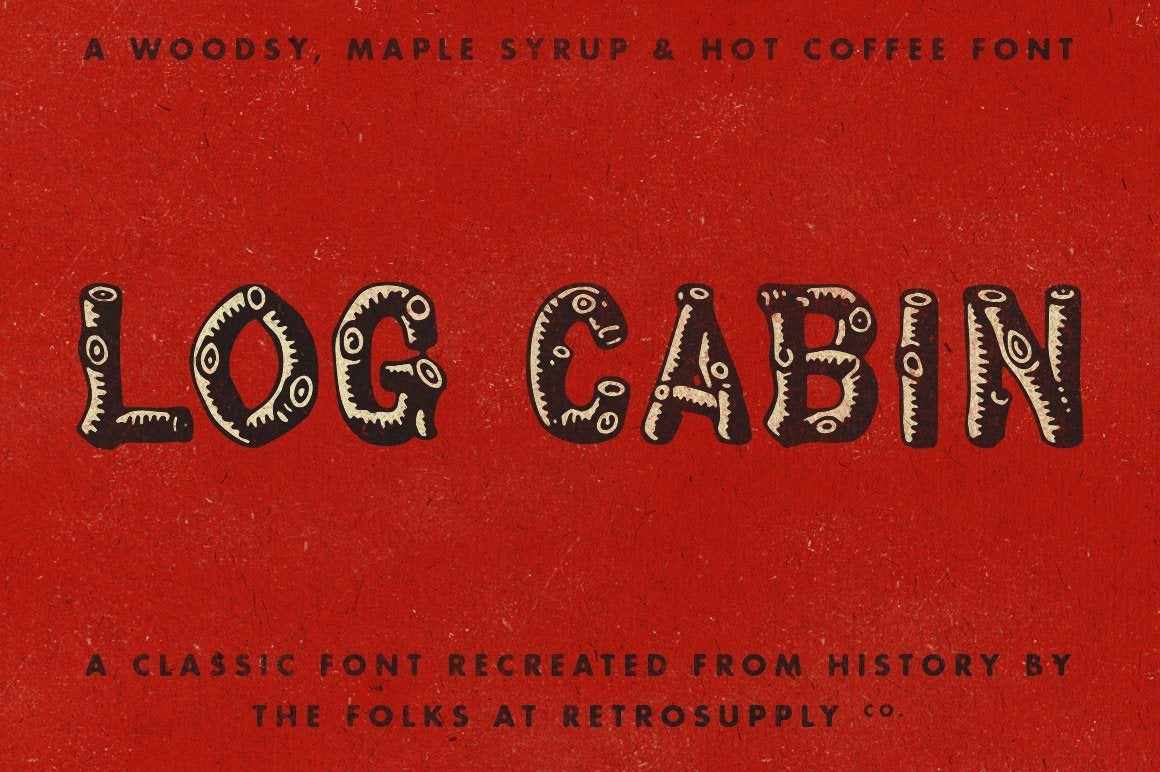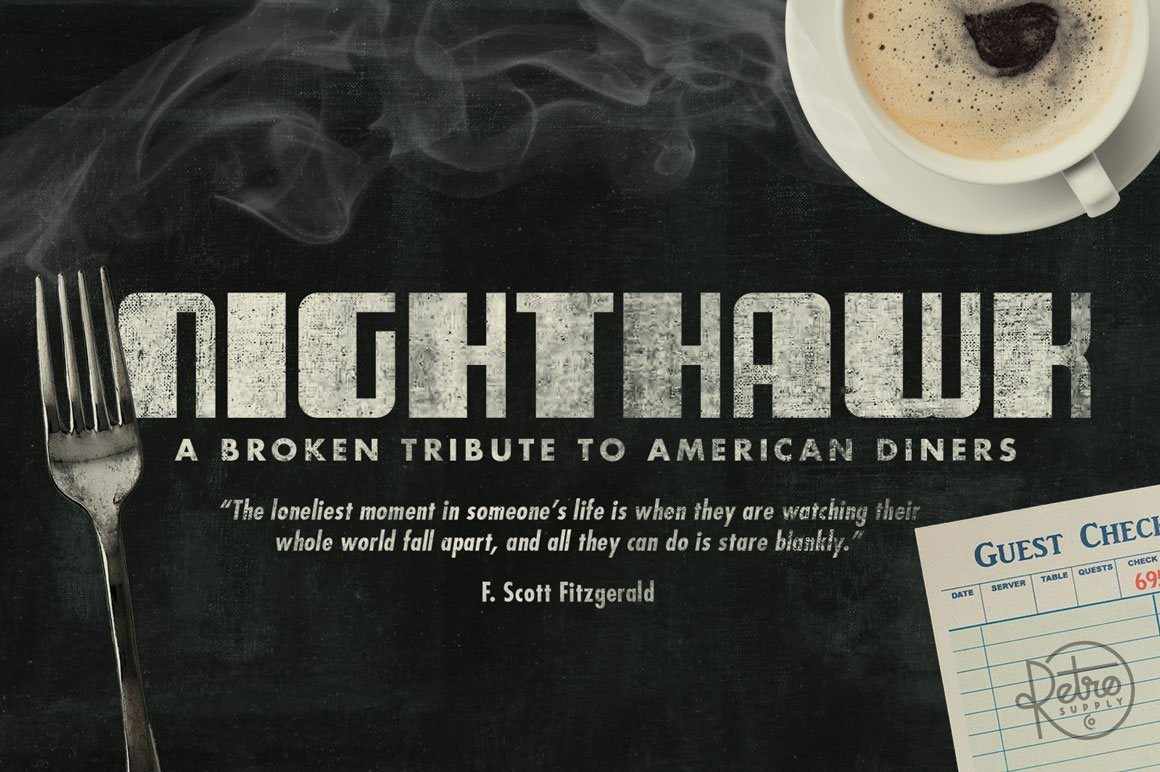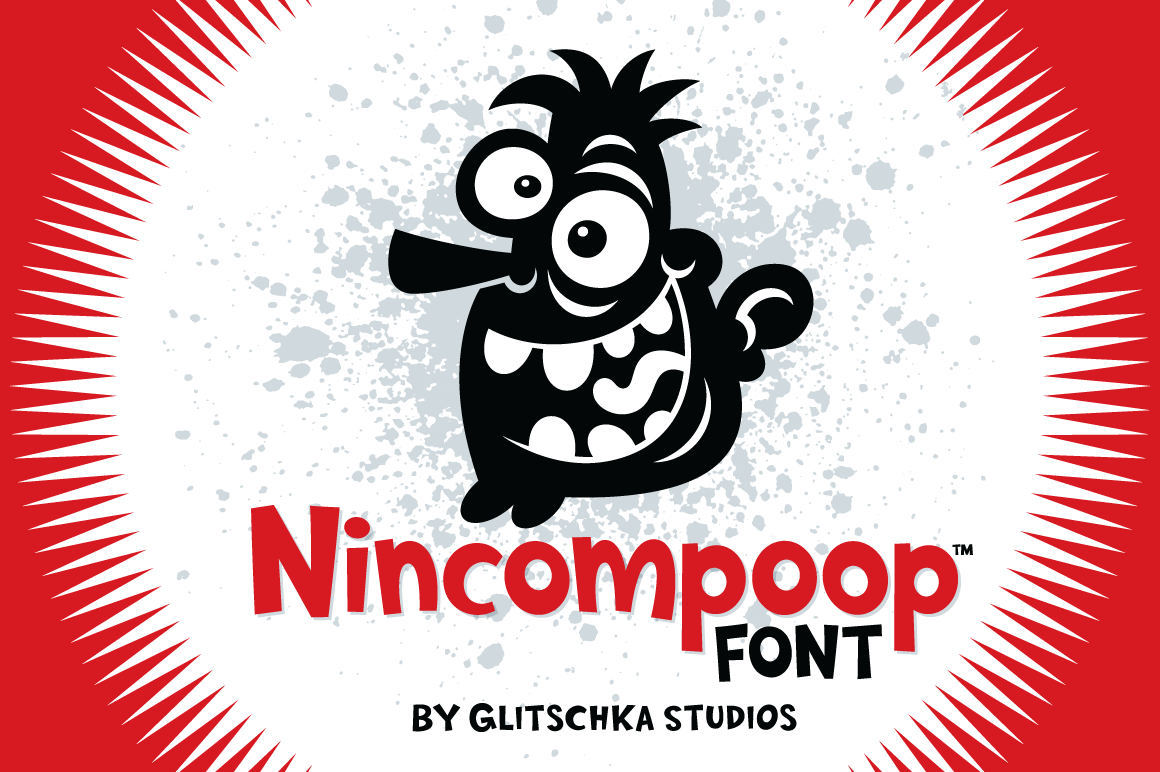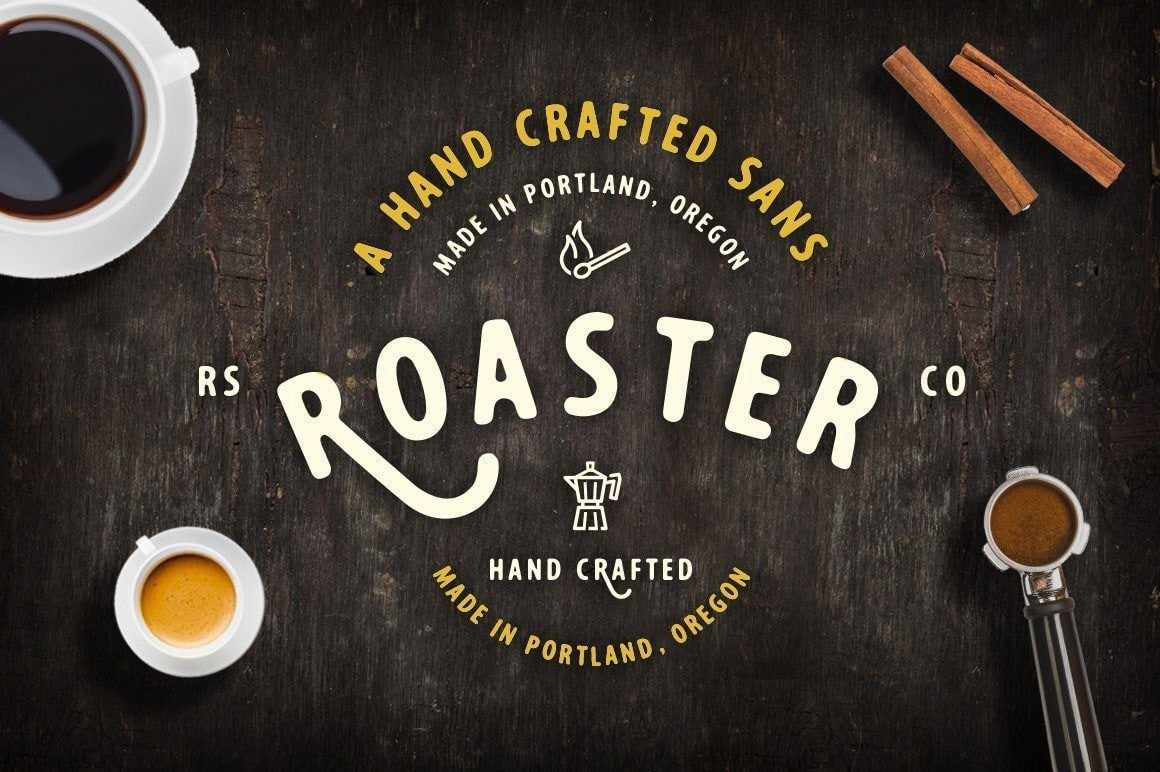
The RetroSupply Complete Font Pack
It's called The RetroSupply Complete Font Pack and it includes our best-selling fonts at a stupid awesome price.
Lovestruck ($39)
Lovestruck is a script font inspired by the flowy freeform lettering of the 60s and 70s. With roots in the luxurious details of the Art Nouveau movement and bold flourishes found in psychedelic culture, you're sure to capture vintage magic with this new script font.
Toom ($20)
A must-have for any comic artist. Includes 3 all-caps faces (Regular, Italic, Bold Italic) inspired by the Leroy Lettering System.
Palm Canyon Drive Deluxe Edition ($39)
Drench your next design in the classic feel of mid-century southern California. Includes three weights (Regular, Lite and Bold). Plus it includes tons of alternate letterforms and transitional words.
Firebox ($19)
A display font inspired by 1950s American tin toys. Includes alpha-numeric characters and European language support.
Transistor ($17)
Inspired by the electrical gizmo boxes in my great Uncle Al's garage in Palo Alto, California. This super-condensed font is inspired by 1950s packaging but with a modern twist.
Unlucky ($19)
The perfect font for delivering bad news. Unlucky is heavy and solemn enough for a death certificate but has modern touches added making it perfect for everything from employee pink slips to evil Valentine cards to ex-lovers.
Greasy Spoon ($19)
We've given this condensed slab-serif an old ink bleed effect by slightly rounding the corners. This font is perfect for everything from a family BBQ invitation to a small batch whiskey label.
Komrade (Bundle Exclusive)
Inspired by 20th century heroic style propoganda fonts. Use Komrade to start your own positive movements and bring power to the people!
Log Cabin ($19)
This font first emerged in the early 20th century. Originally sold in direct mail stock image catalogs to small businesses, this found has been used heavily in camping, outdoor, and national park advertising.
NightHawk ($19)
Nighthawk (a name that pays tribute to Edward Hopper’s classic painting Nighthawks) reflects the late night, melancholy, feel of lonely bar patrons making their way home.
Nincompoop ($19)
A light-hearted font designed by Von Glitschka. This font works great for everything from kids packaging to comic books. Plus, it's loaded with all sorts of bonus glyphs!
Roaster (Bundle Exclusive)
I live just across the Columbia River from Portland, Oregon (AKA Portlandia). One of the best things about Portland is that every corner has an amazing locally owned coffee shop. Roaster is inspired by the hand-crafted mono weight scripts that can be found in these shops.
SOLID70 ($19)
First find a time machine. Now go back to a 1970s American machine shop. Now soak up the design vibe and concentrate it into one beautiful and powerful font. That's SOLID70. Great for big headlines and easy to customize. This font is like a playground for type lovers.
Wildfire (Bundle Exclusive)
A mono weight script inspired by the Pacific Northwest. Wildfire is a perfect base for creating your own line of merchandise, creating inspiring and refined typographic messages, or a set of matchbooks inspired by the past.
Authority ($29)
Inspired by public fonts used in school systems and transportation in 1970s New York. Authority is a bold headlines font that comes in 3 versions: Standard, Rounded and Distressed. Includes a total of 6 typefaces.